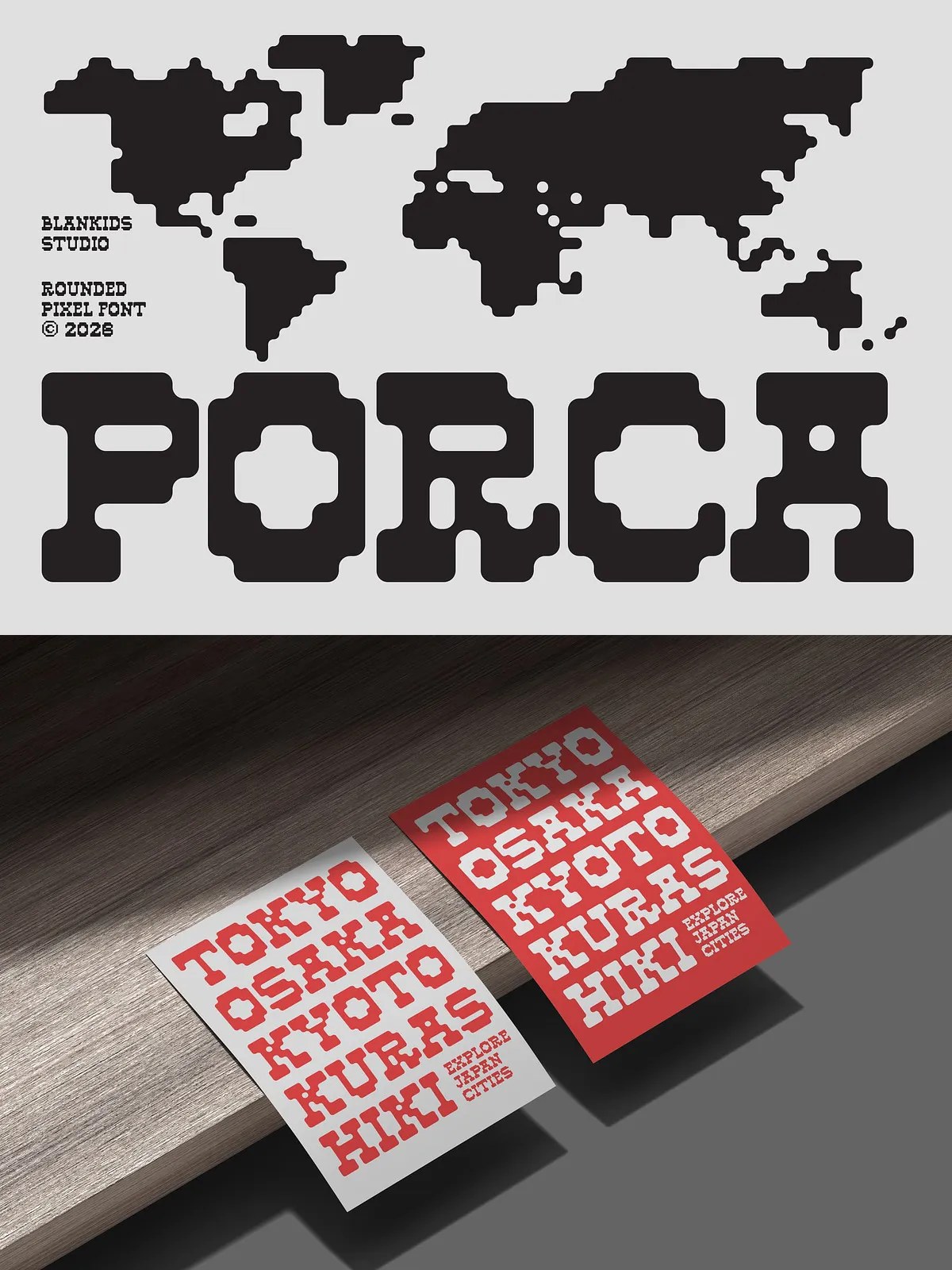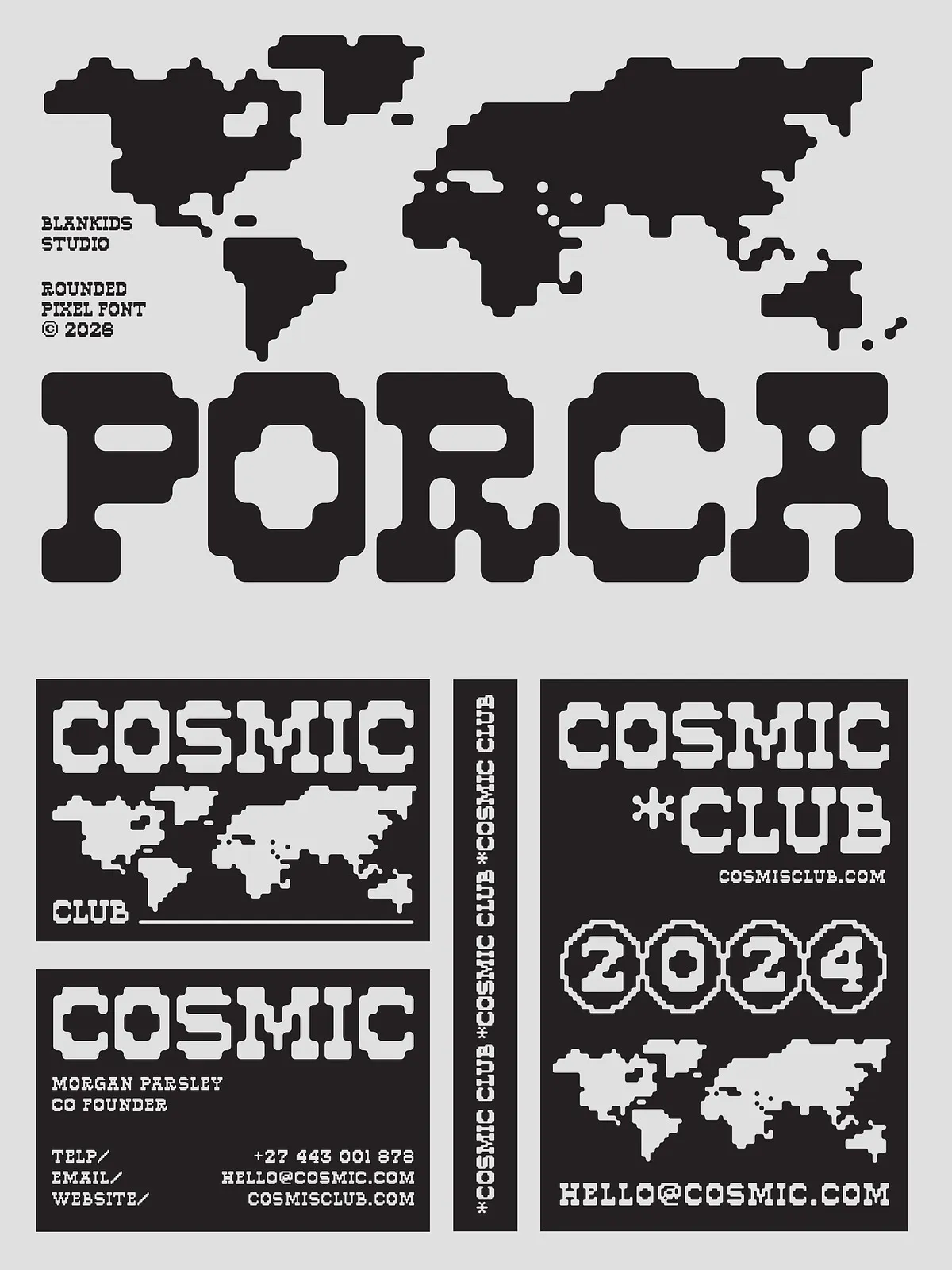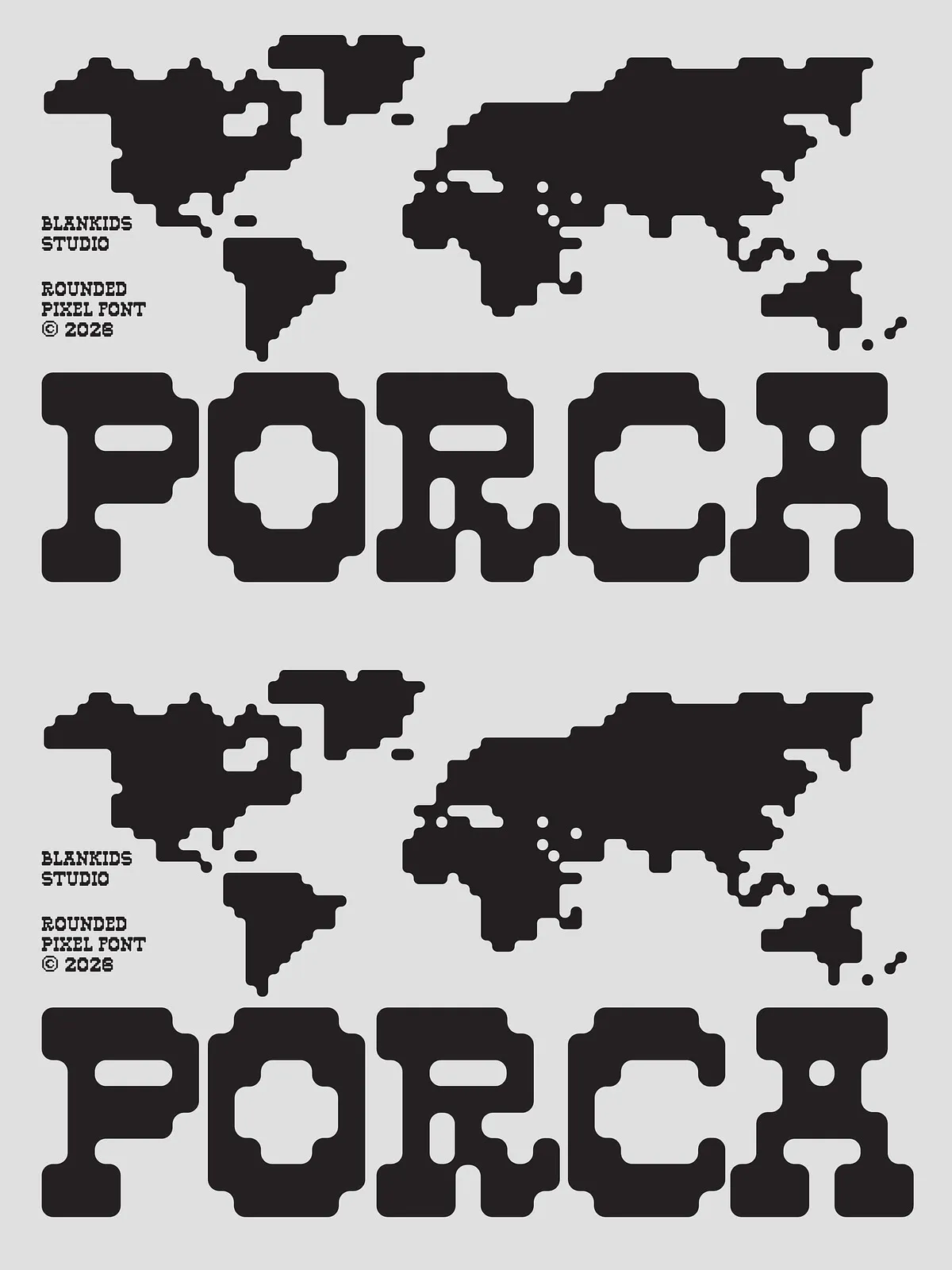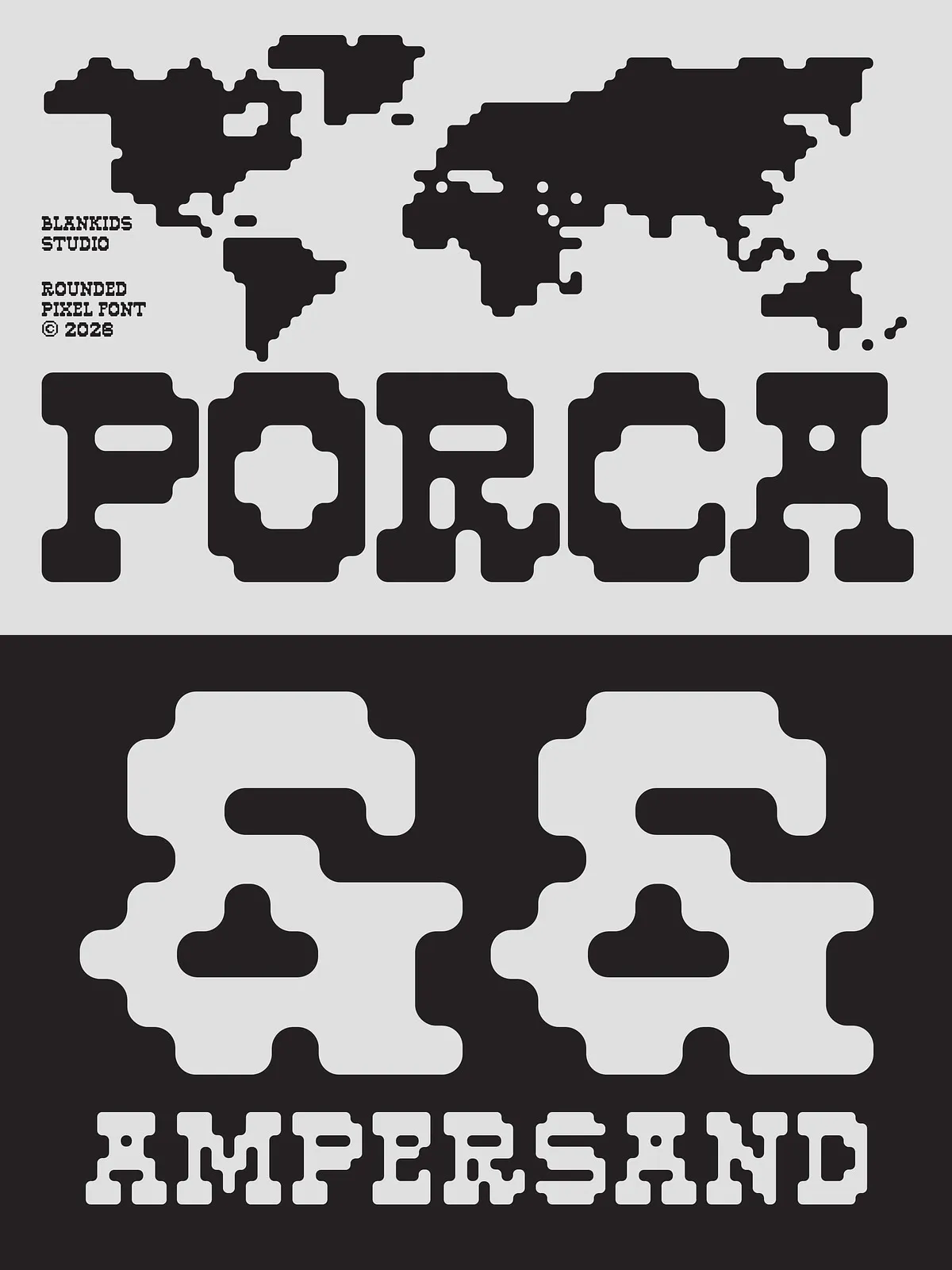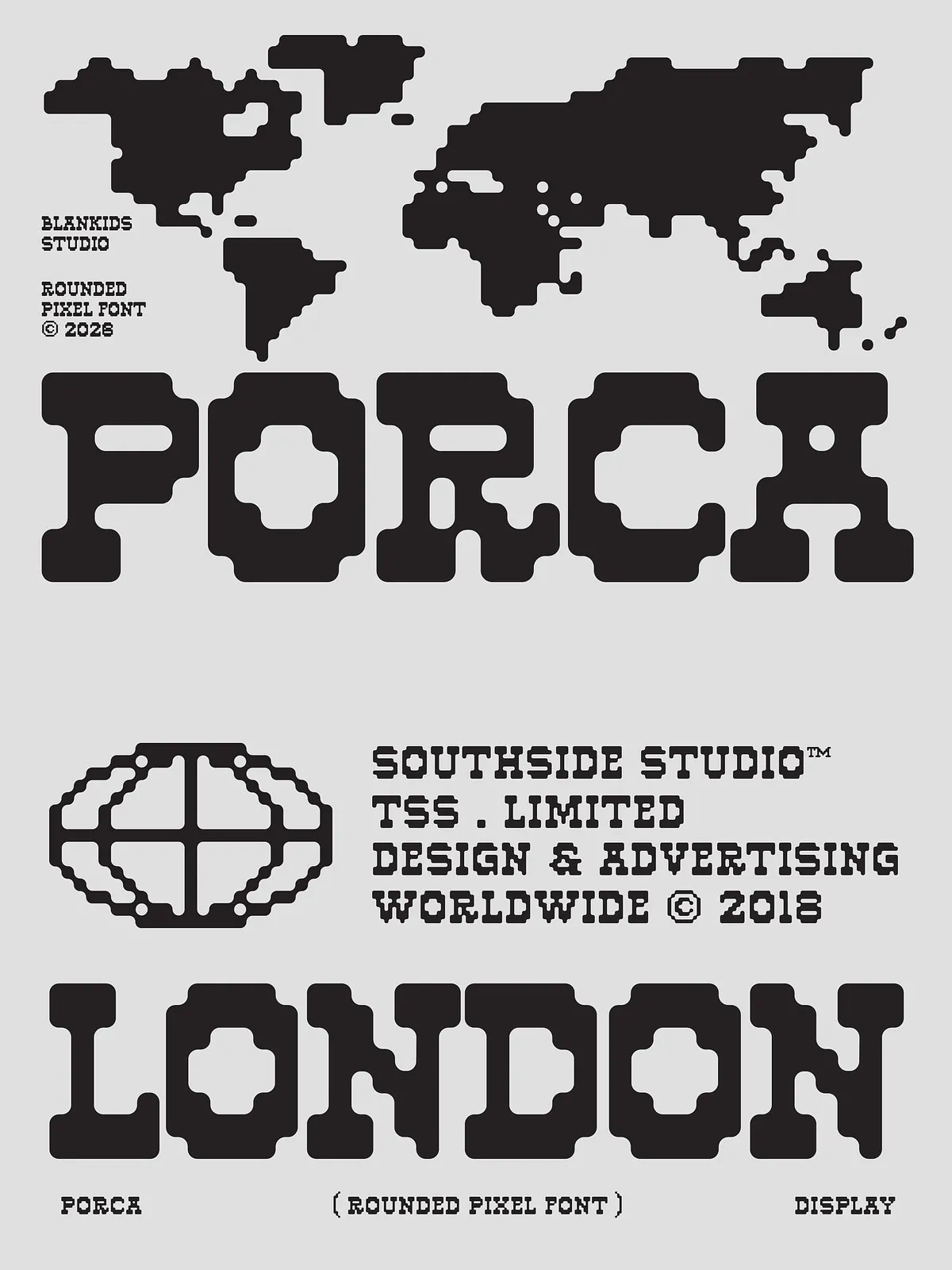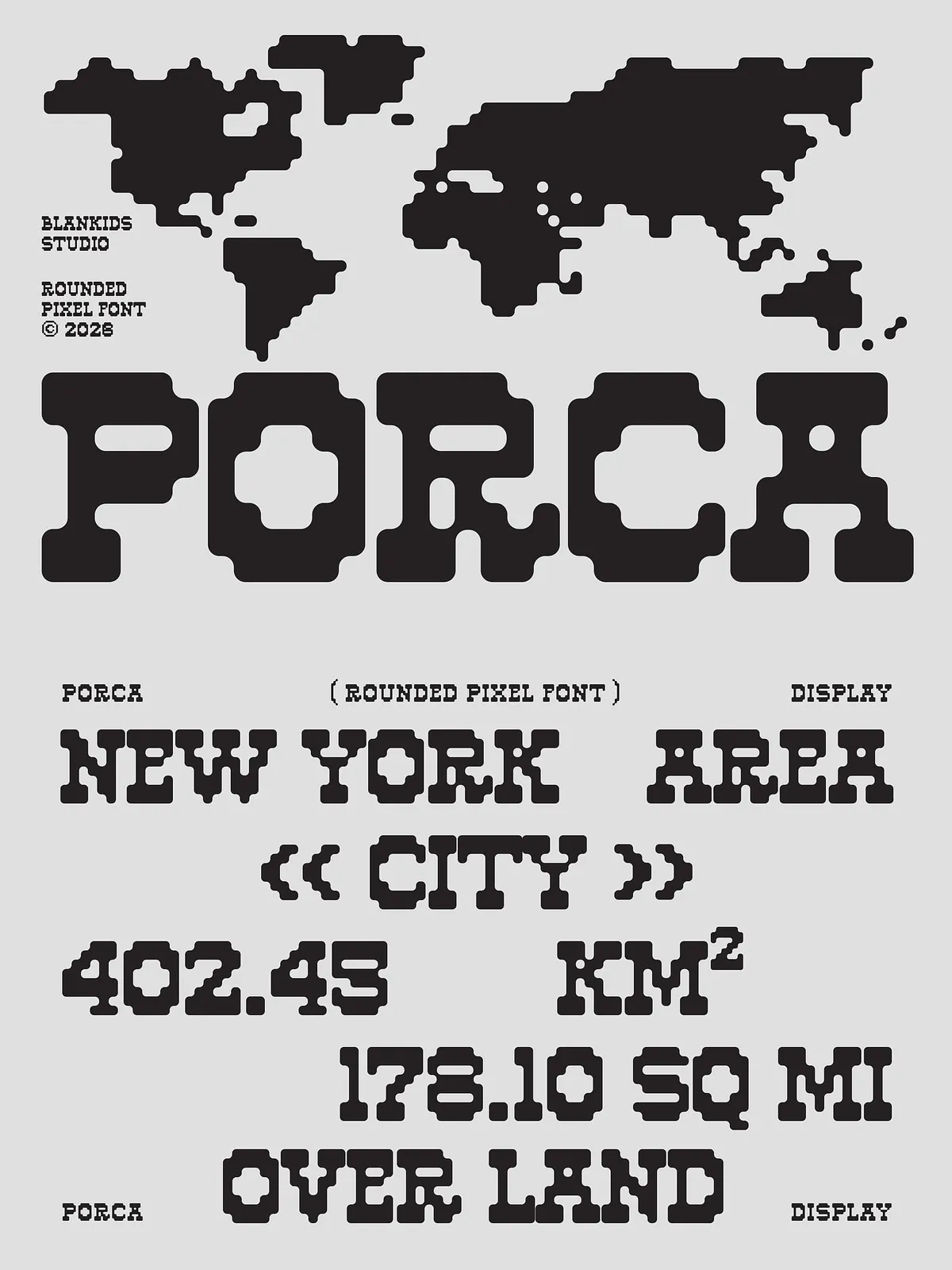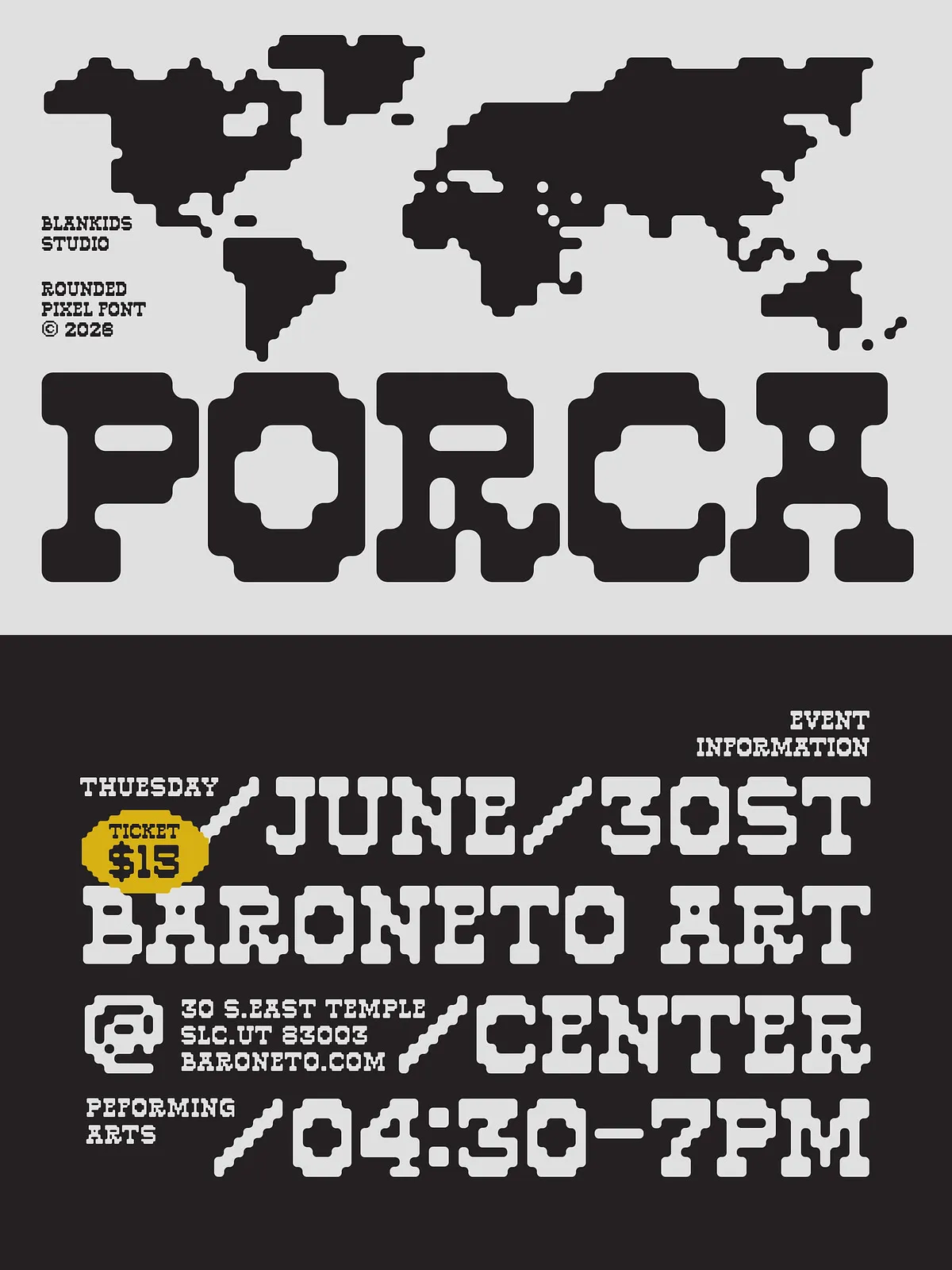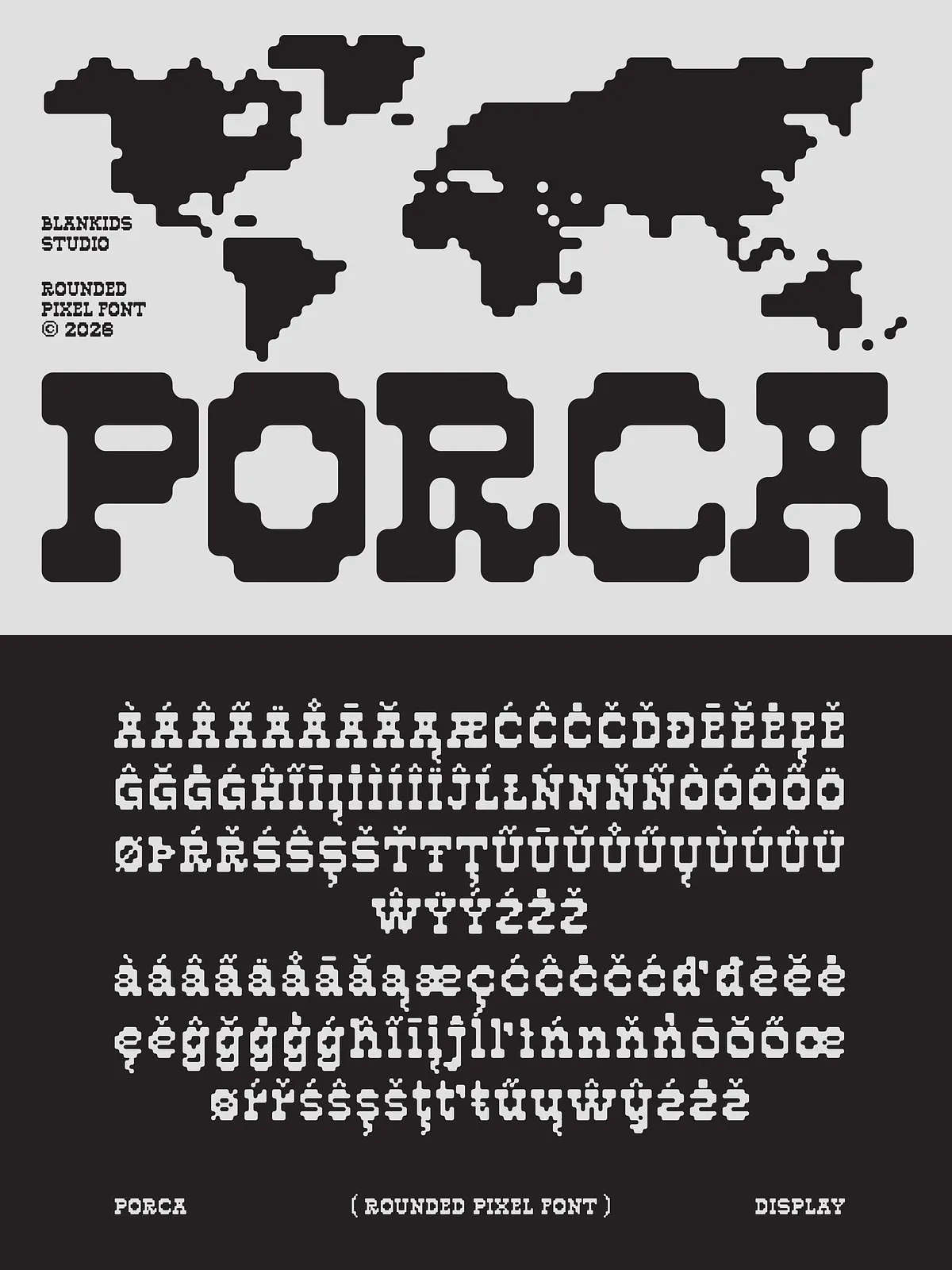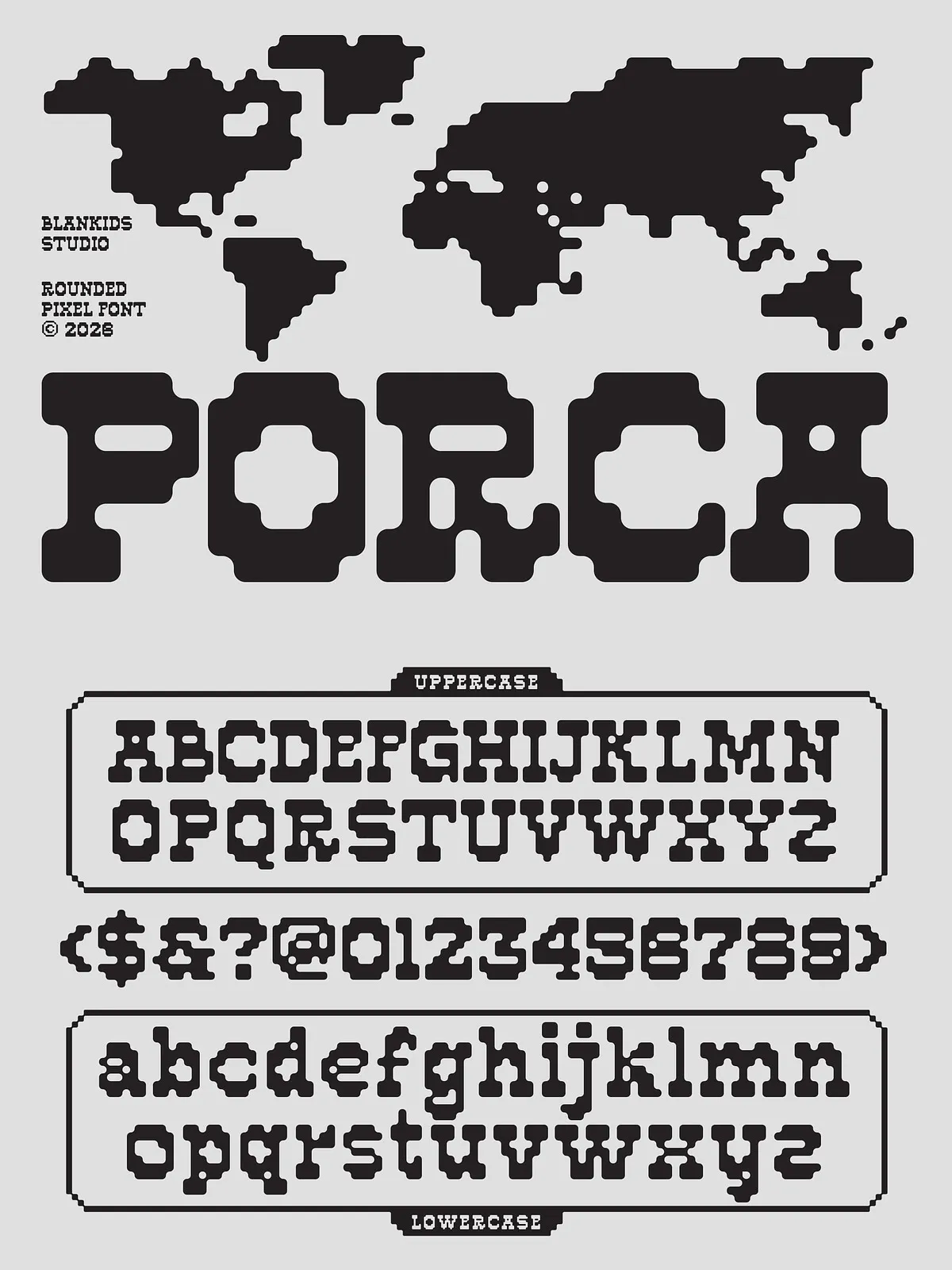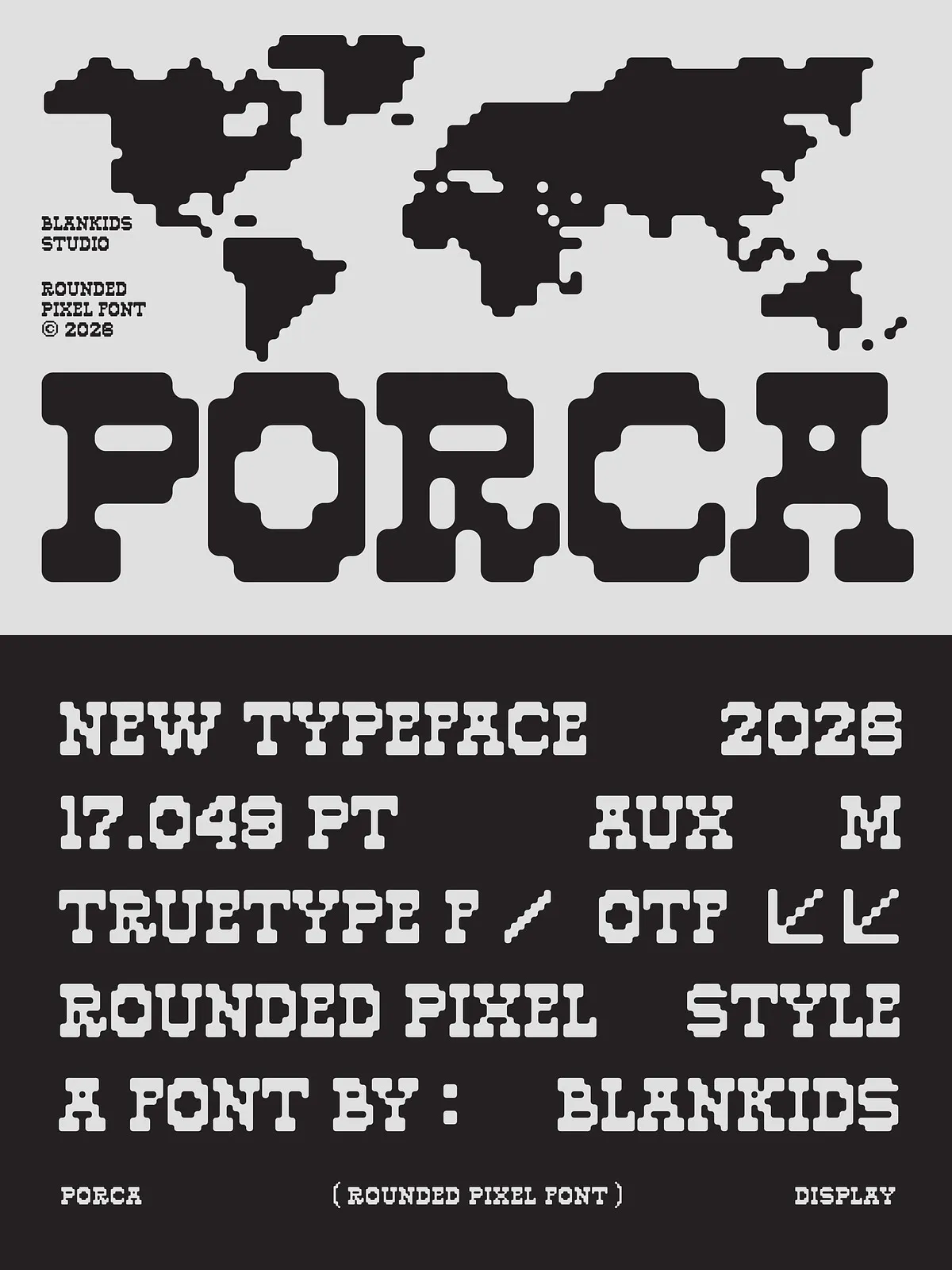
Porca captures the raw energy of 1980s arcade cabinets and vintage computer terminals, reimagined with a contemporary twist. This bold pixel font features rounded edges that soften the harshness of traditional bitmap typography, creating a unique aesthetic that feels both retro-futuristic and modern. Designed for designers who want to evoke nostalgia while maintaining a professional and polished look, Porca serves as a versatile tool for gaming, streetwear, merchandise, and branding projects.
Design Characteristics
Chunky Bitmap Aesthetics with a Modern Edge
Unlike rigid pixel fonts that can feel outdated or overly harsh, Porca incorporates softened corners and chunky blocky shapes. This design choice ensures that the text remains legible and visually appealing even at larger sizes. The strong blocky forms deliver a powerful impact, making it ideal for headlines, logos, and promotional materials that need to grab attention instantly. The playful yet powerful look bridges the gap between retro gaming culture and modern graphic design trends.
Comprehensive Character Set
Porca is complete with uppercase and lowercase letters, numbers, and essential symbols. This full character set allows for greater flexibility in design, enabling typographic hierarchy and detailed text composition. Whether you are designing a game title screen, a social media post, or a product label, Porca provides the necessary tools to create engaging and cohesive visual narratives.
Versatile Applications
This font is highly suitable for a wide range of applications:
- Gaming Projects: Perfect for video game interfaces, titles, and promotional assets.
- Streetwear and Merchandise: Ideal for t-shirts, hats, and accessories that aim for a retro-inspired look.
- Branding and Packaging: Adds a unique and memorable touch to product packaging and brand identities.
- Poster and Flyer Design: Creates eye-catching visuals for events, concerts, and exhibitions.